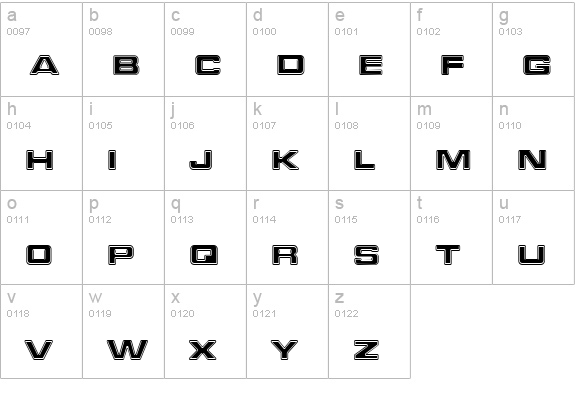
Federation Star Fleet Font Details
Introducing Federation Star Fleet font, a sleek and futuristic typeface that embodies the spirit of space exploration and adventure. This versatile font is perfect for all your sci-fi themed projects, from posters to websites to merchandise. With its bold and modern design, Federation Star Fleet font is sure to make a statement and capture the imagination of your audience. What's even better is that this amazing font is available for free download at FontsMarket.com. Yes, you read that right - you can get your hands on this fantastic typeface at no cost at all. So why wait? Download Federation Star Fleet font today and take your designs to new galaxies of creativity!